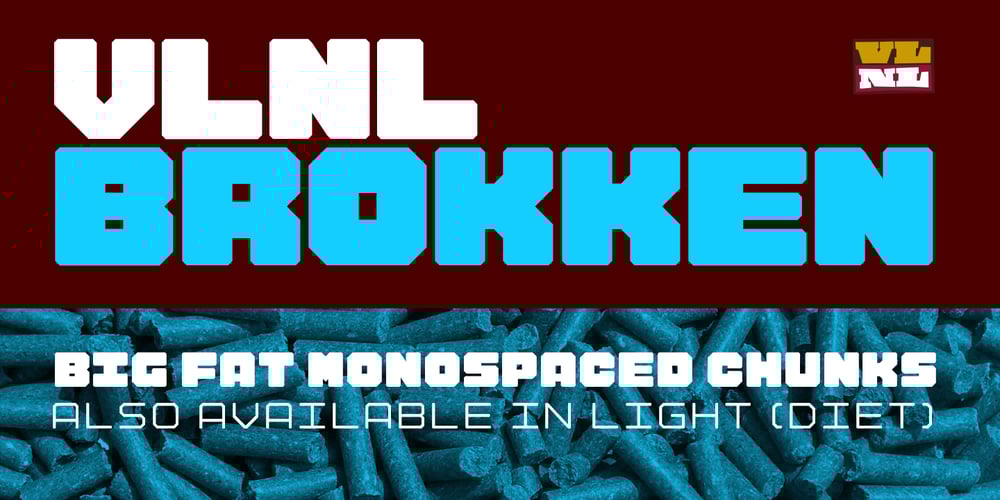
VLNL Brokken Font Family was designed by Donald Beekman and published by VetteLetters. VLNL Brokken contains 2 styles and family package options. ‘Brokken’ is the Dutch word for ‘chunks’. They are the hearty specialty of the house, prepared by the ship’s cook Donald DBXL Beekman. Nice’n’greasy and monospaced, you’ll always find a decent way to cram the letters in. Brokken is straightforward, straight-lined with beveled corners, and all caps. For the ones who have to watch their weight, or who simple don’t like their fonts to be too fatty, DBXL designed a diet version called Brokken Light. With their big contrast, both weights combine very well and are great for making ultra-compact ribbon headlines or stacking vertically.